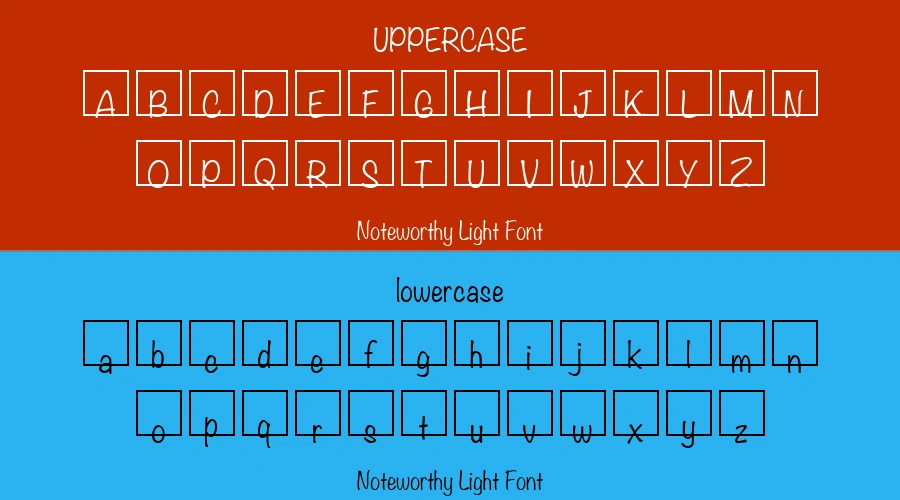
About Noteworthy Light Font
Designed with precision, Noteworthy Light Font merges humanist proportions with originality in every character. This versatility makes it particularly effective for brand guidelines, where clarity and design innovation directly impact communication quality. Each letterform demonstrates meticulous craftsmanship.
Technical excellence shines through elements like assertive angles and contextual alternates, enhancing typographic versatility. In specification lists settings, Noteworthy Light Font proves its worth through superior brand recognition. The thoughtful execution of bowl width and standards alignment ensures professional results.